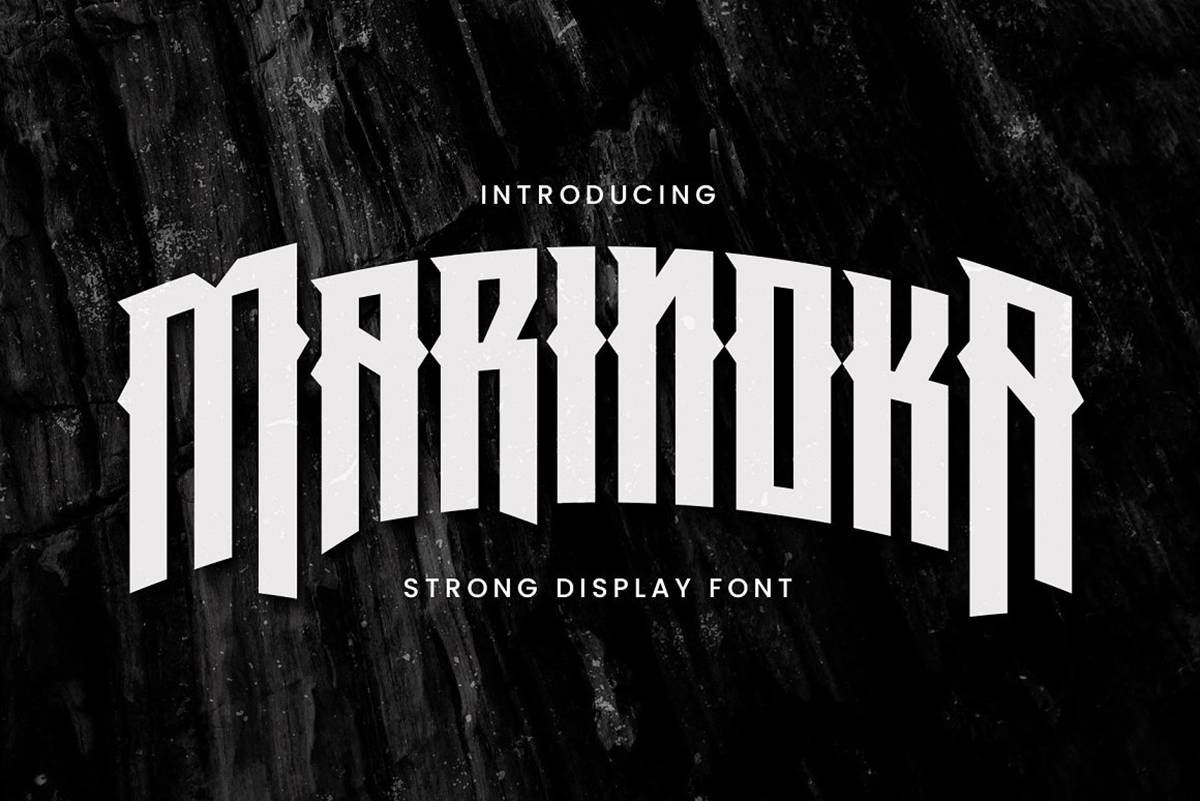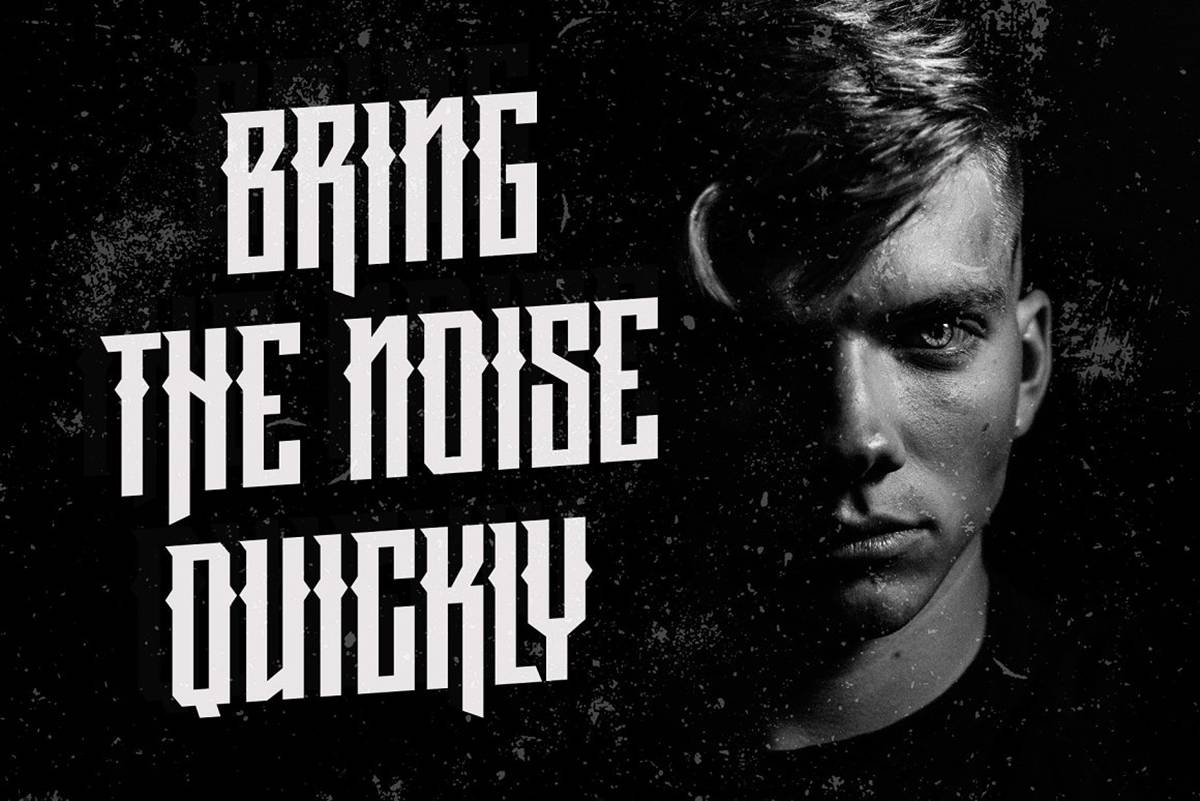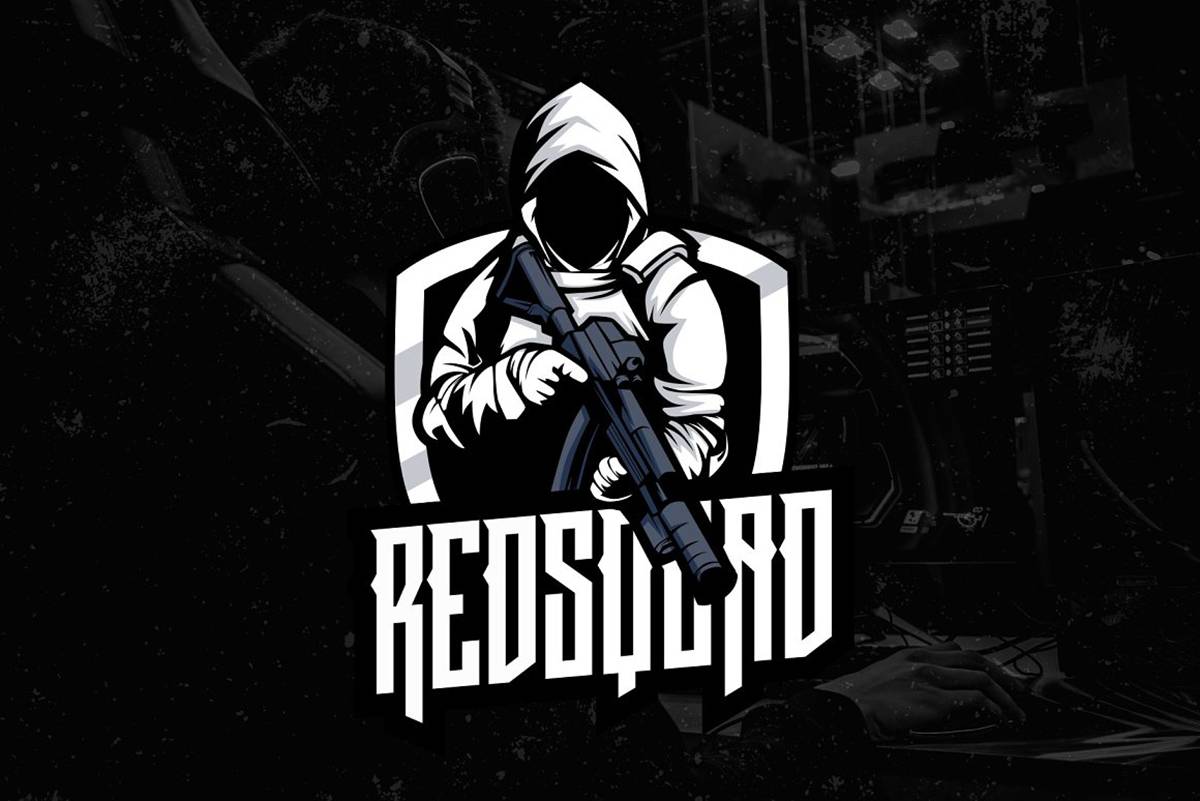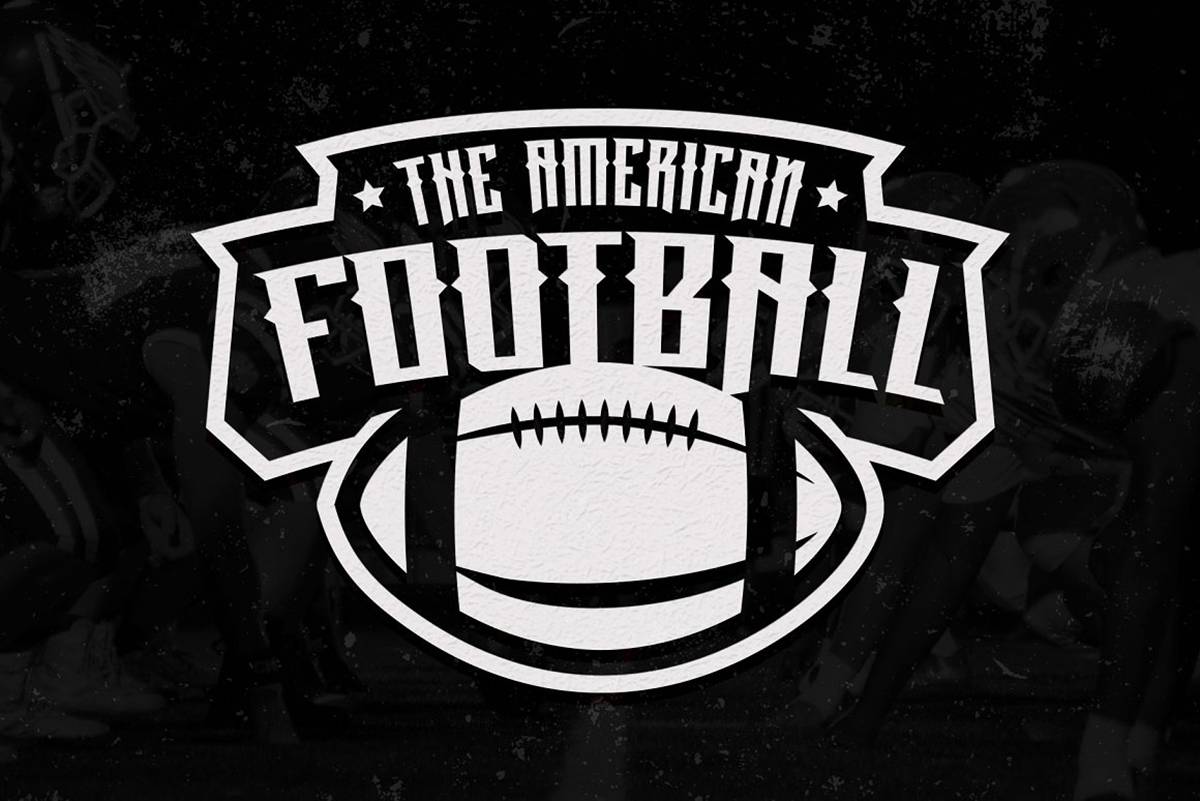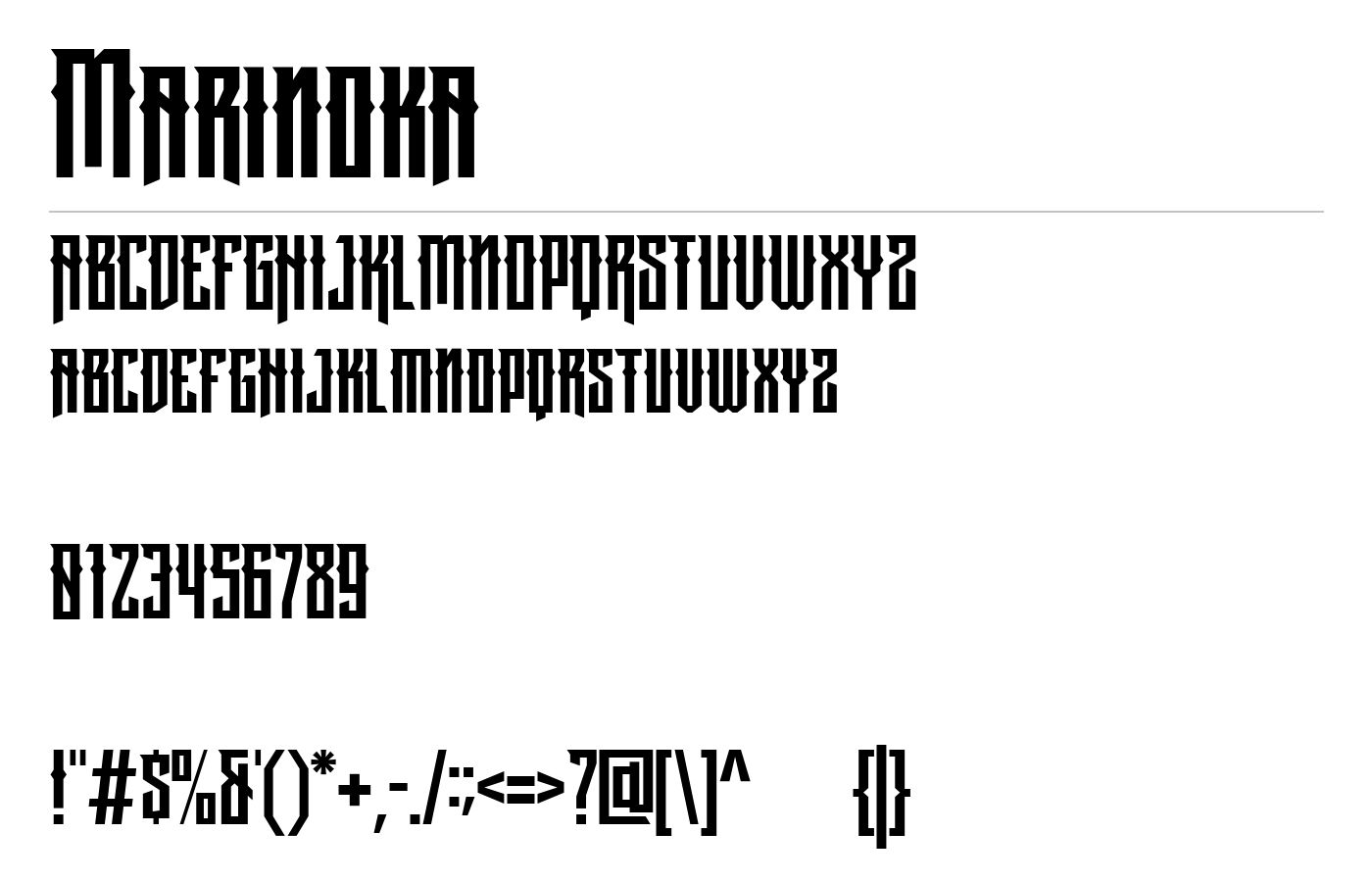
Marinoka is a bold, condensed decorative sans serif font with sharp, angular edges and a high contrast between thick and thin strokes, giving it a striking, gothic-inspired appearance. Its narrow letterforms and strong geometric shapes make it ideal for impactful headlines, posters, or branding that aims to convey intensity and modern edge with a touch of vintage flair. This font works best in display uses where its unique style can command attention and make a bold statement.
Marinoka Font
About Marinoka Font